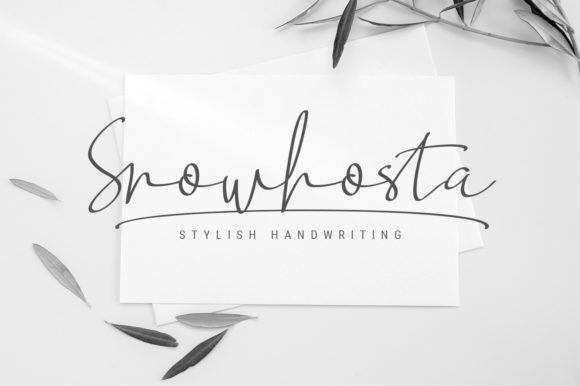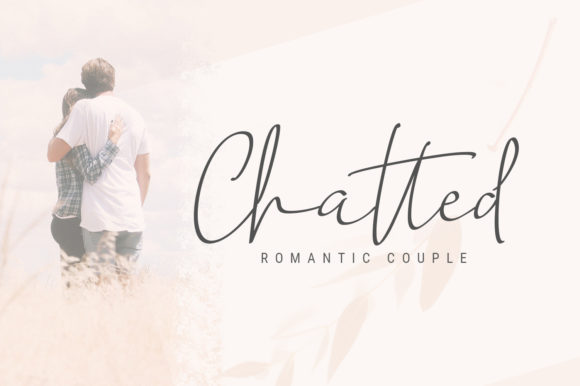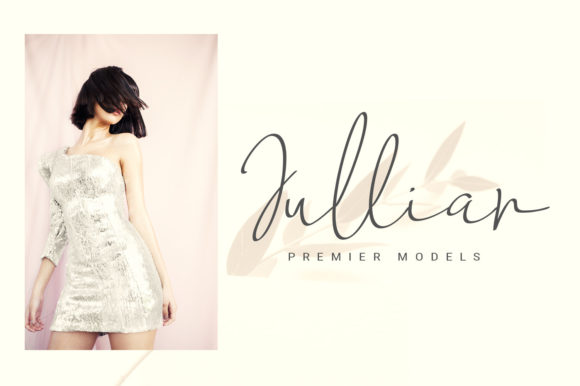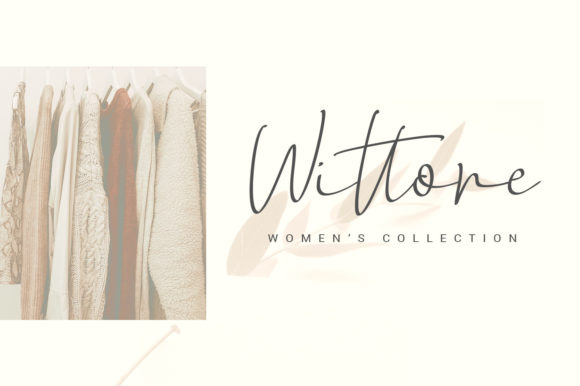
About Snowhosta Script Font
Snowhosta Script is a cursive and thin lettered script font. This font is PUA encoded which means you can access all of the glyphs and swashes with ease!
Fall for its ravishing style and use it to create gorgeous designs.